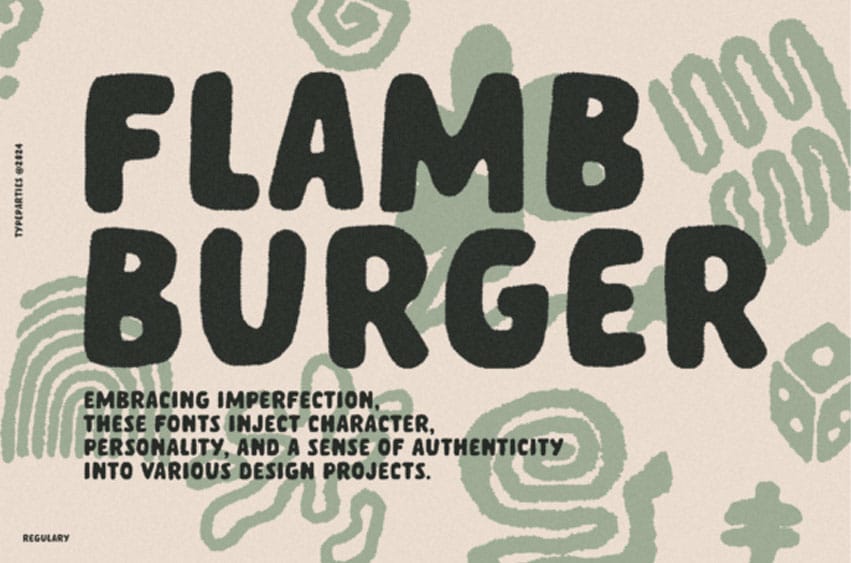
Flamb Burger Font Embracing imperfection, these fonts inject character, personality, and a sense of authenticity into various design projects.
Flamb Burger plays a crucial role in design, communicating not just words but also the essence of a message. While clean and organized fonts dominate the digital landscape, there’s a growing trend that embraces imperfection — messy handwriting fonts.
These fonts inject personality and uniqueness into design, challenging the conventional notions of precision and uniformity. In this article, we’ll explore the art and appeal of messy handwriting fonts, examining their characteristics, applications, and the creative freedom they offer.
Flamb Burger Font Preview